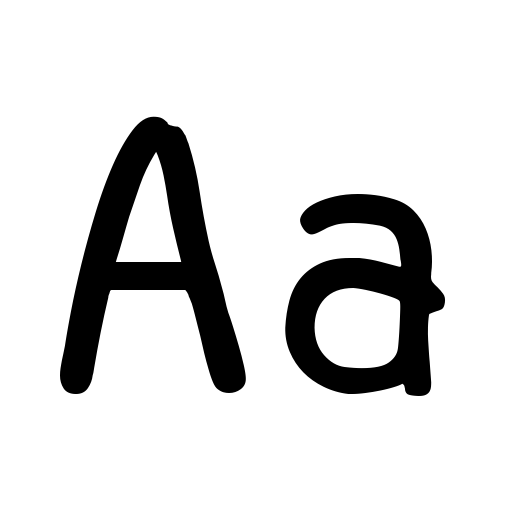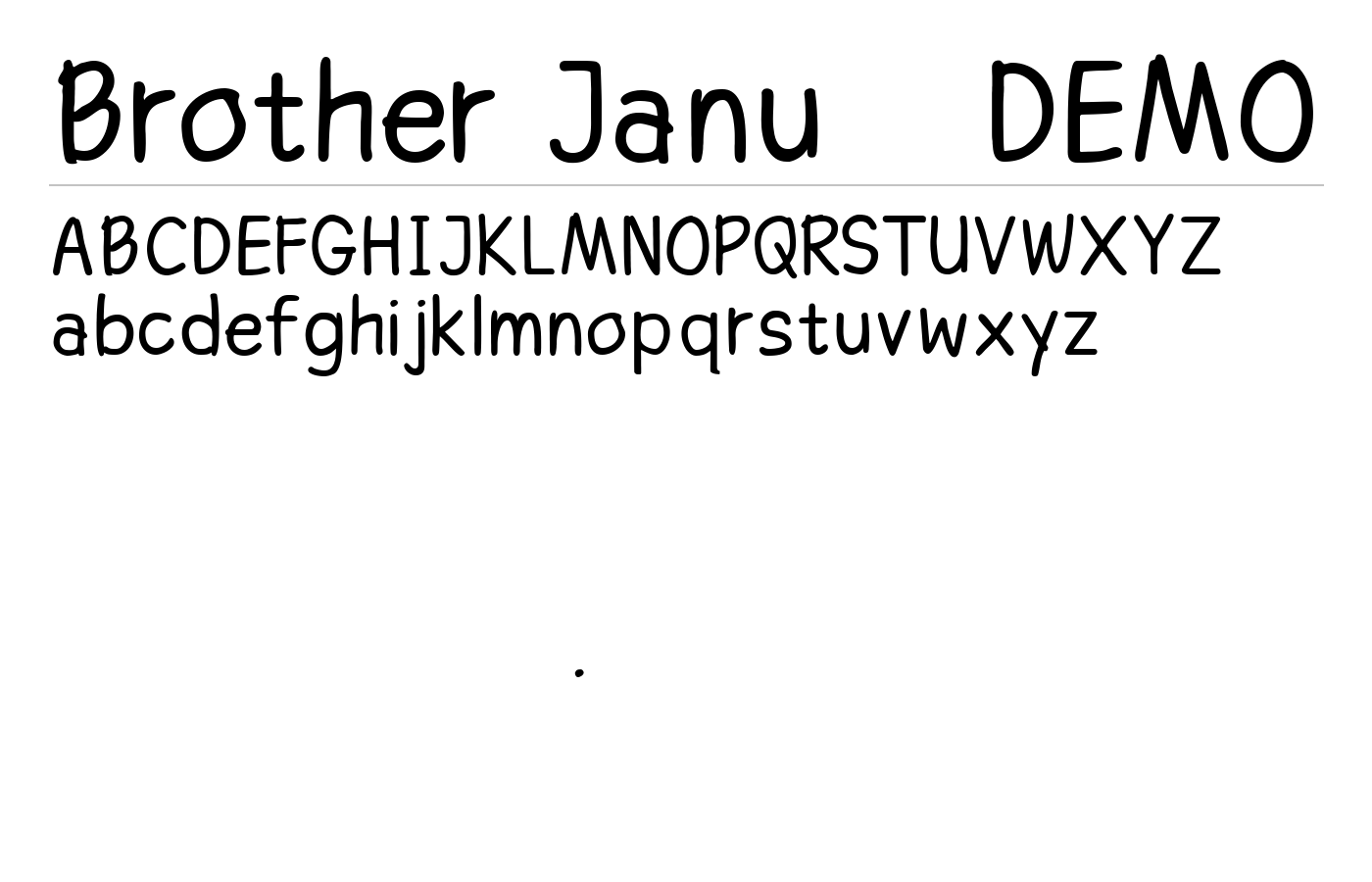
Brother Janu is a casual, hand-drawn sans serif font with a playful and friendly personality. Its slightly irregular, rounded letterforms and moderate x-height give it a warm, approachable feel, making it ideal for informal designs, children’s materials, and creative projects that seek a personal touch. This font works well in headlines, invitations, and packaging where a relaxed and charming vibe is desired.